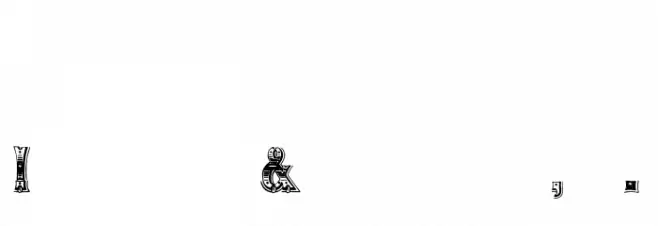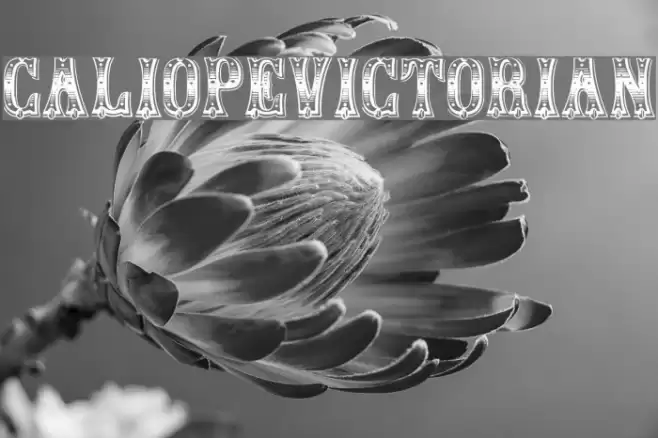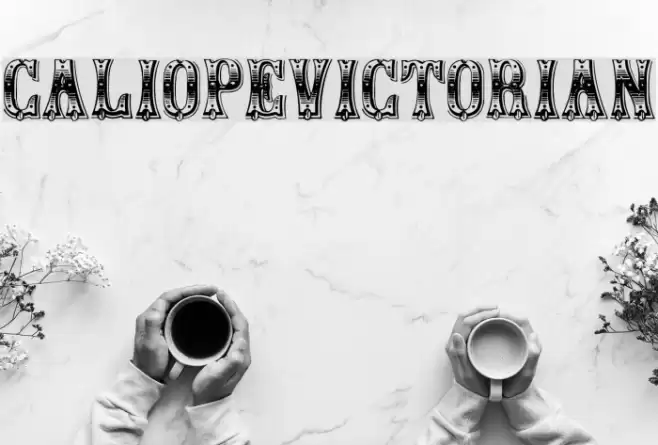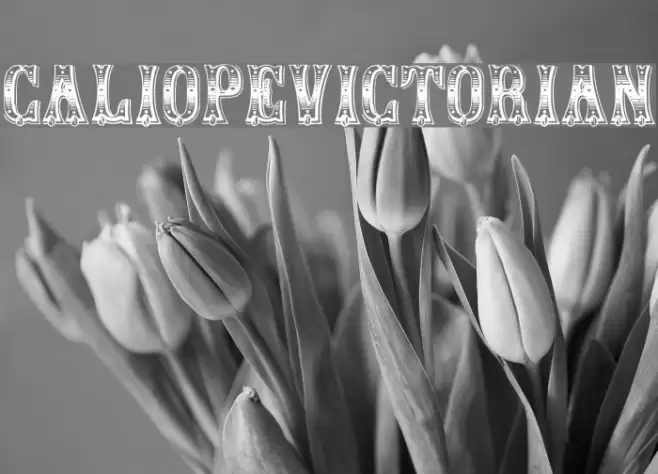
CaliopeVictorian Font
CaliopeVictorian Description
This font features an ornate, decorative style reminiscent of Victorian-era design. Each character is embellished with intricate patterns and flourishes, giving it a highly detailed and artistic appearance. The letters are bold and commanding, with a strong presence that makes them ideal for attention-grabbing headlines or artistic projects. The font's elaborate design elements include swirls and curves that add a sense of elegance and sophistication. Its unique style is perfect for creating a vintage or historical aesthetic, making it suitable for themed events, posters, or branding that requires a touch of classic charm.
| Overall Style | Vintage |
| Proposed Projects | Ideal for vintage-themed posters, event invitations, branding, and artistic projects requiring a historical touch. |